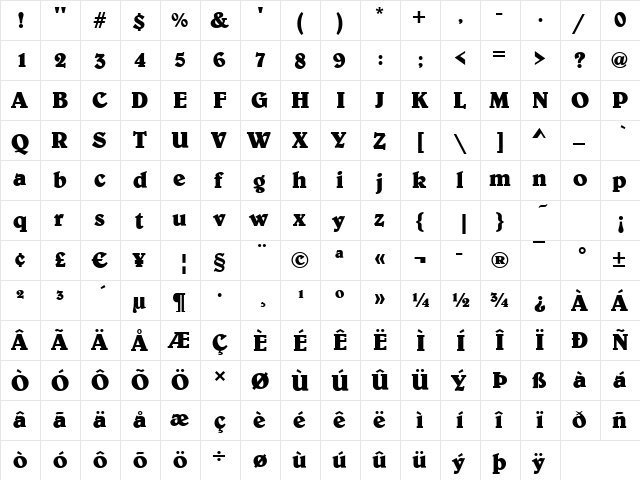
Benson-Bold Regular
Design Context for Benson-Bold Typeface
Benson-Bold takes a measured approach to typography — its balanced proportions and neutral character make it a reliable workhorse for both digital and print work. The heavy weight commands attention and anchors typographic hierarchies.